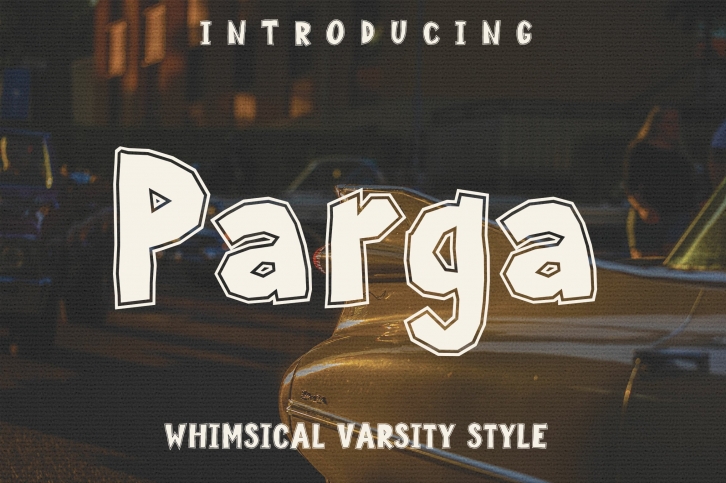
Parga is a beautiful font that was designed by Royaltype. It's a great choice for designers and creatives who need such a font. It was released on November 17, 2022 and the file size is 16.10 MB. Parga may give a more youthful, expressive and casual look to your project. It is a very beautiful, refined, elegant, and high-quality font.